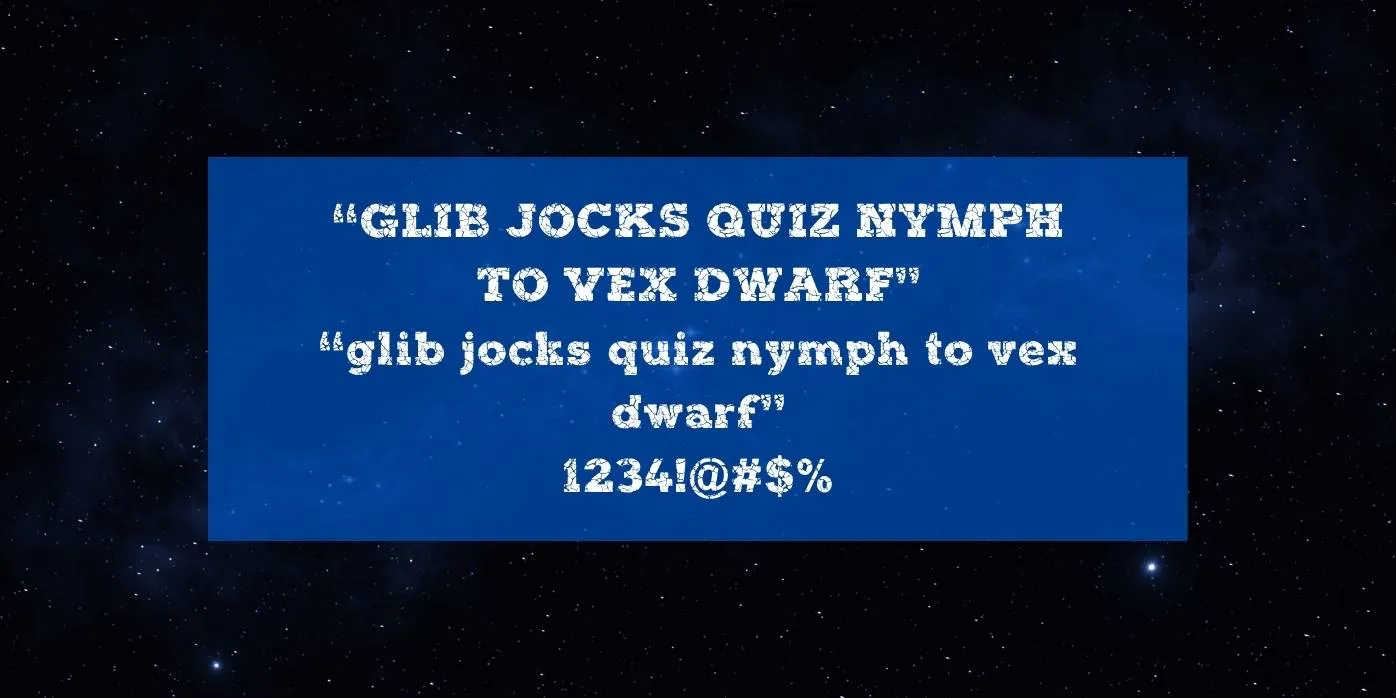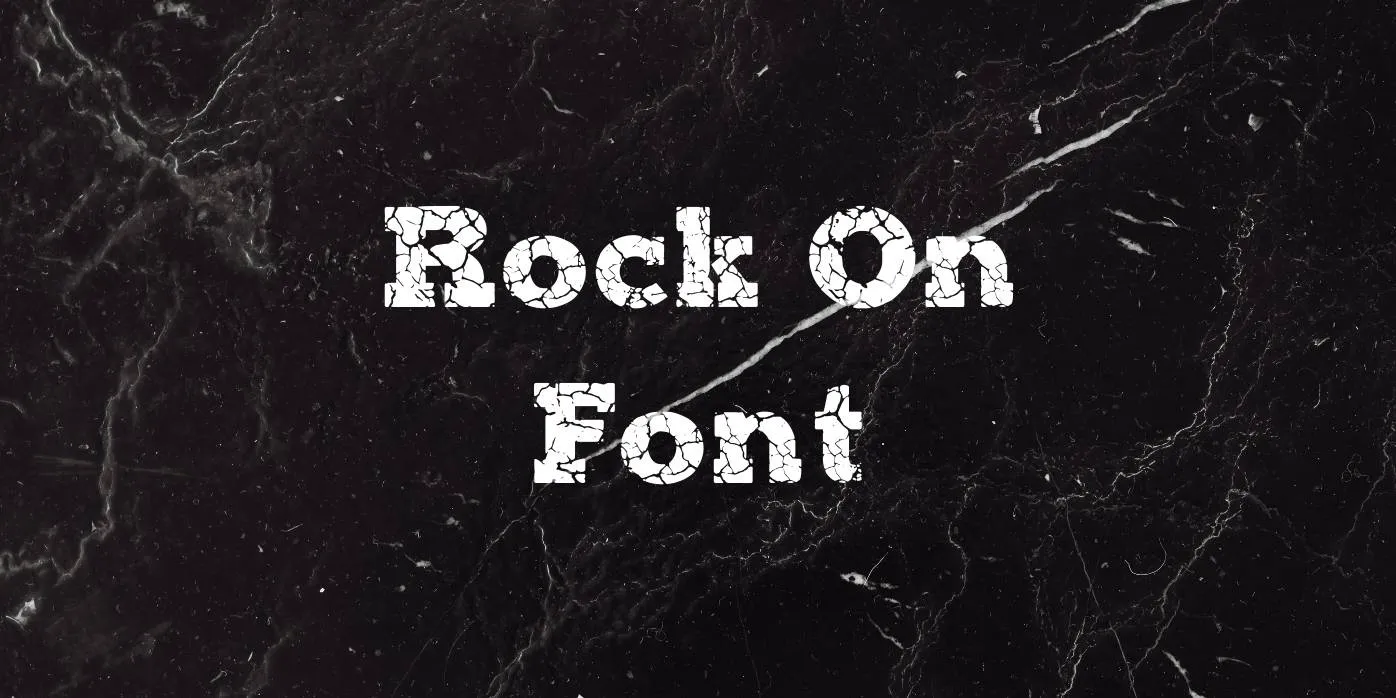
Rock on Font
Here we are consulting on Rock on Font which belongs to the display font family. This typeface was created by Studio Typo.  The letters are full of energy which makes this font perfect for headlines, logos, and other displays. It is well-famed for the CSS. The shapes of the letterforms are Round, and there are a few alternative characters included.
This stunning font is available in both TTF and OTF file formats. Its interesting characters are easily readable which gives a natural look. You can also use the baker signet font which is closest to this font family. This gorgeous font is perfect for headlines, logos, and other displays.
It has a unique energy that makes it stand out from other fonts. The round shapes of the letterforms are easily readable and give a natural look. You will have to use its online generator tool which is suitable for graphic designs.